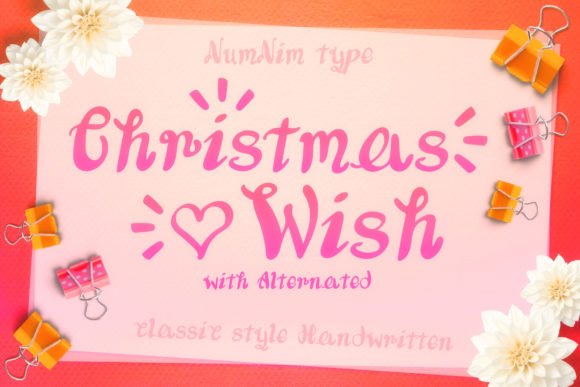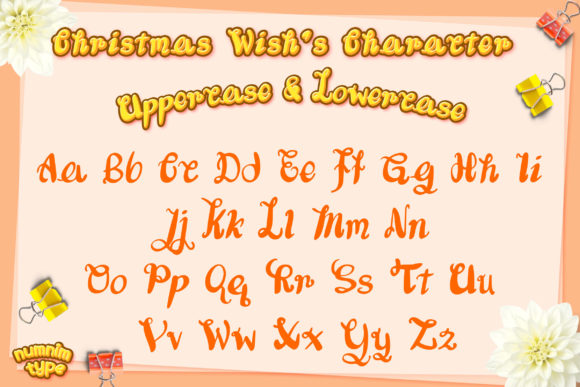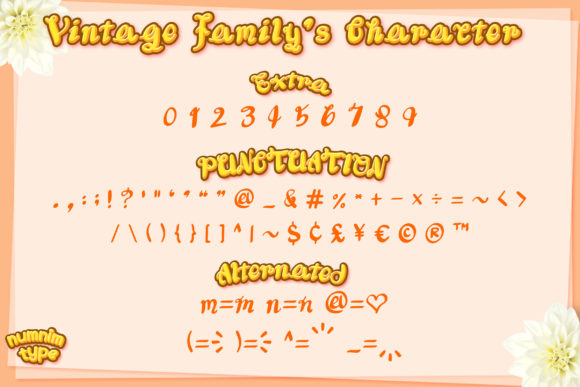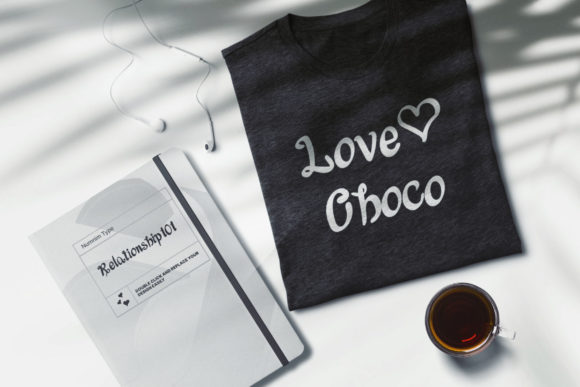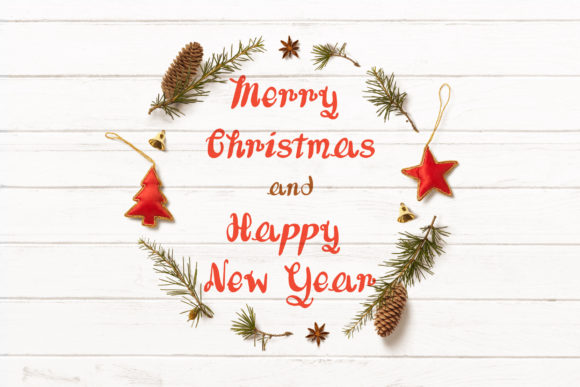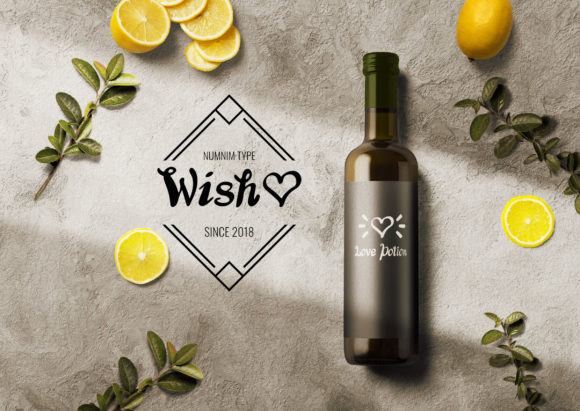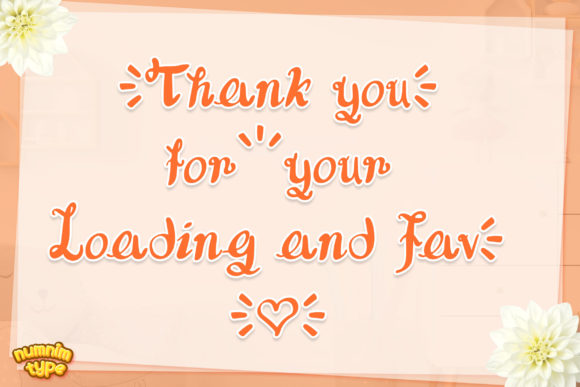
Unwrap the Magic of Christmas Design with the Christmas Wish Font
As the snowflakes start to fall and the fireplace crackles to life, the holiday season is in full swing. It’s a time for creativity and connection, and what better way to express your festive spirit than with a font that embodies the joy and wonder of Christmas? For designers, finding the perfect font can be a challenge, but when you stumble upon the Christmas Wish Font, all your holiday design dreams come true.
This magnificent script font is a treasure trove of chunky letters, beautiful swashes, and fun swirls, making it the perfect choice for greeting cards, social media posts, and countless other crafts and designs. With its PUA encoding, accessing the available glyphs and swashes is a breeze, allowing you to add a personal touch to your holiday creations. Whether you’re a seasoned pro or a design newbie, the Christmas Wish Font is sure to bring a smile to your face and a sparkle to your designs.
- Unique Characteristics: The Christmas Wish Font features a distinctive, hand-drawn design with intricate details and ornaments, making it perfect for festive and holiday-themed projects.
- Character Set: The font includes a comprehensive character set, including uppercase and lowercase letters, numbers, punctuation marks, and a range of festive symbols and icons.
Designer Review: Christmas Wish Font
As a designer, I was excited to try out the “Christmas Wish Font” for my upcoming holiday projects. Here’s my honest review.
- Unique and festive design: The font is perfect for adding a touch of holiday cheer to your designs.
- Wide character set: It includes a wide range of characters, including letters, numbers, and punctuation.
- Easy to read: The font is clear and easy to read, even at smaller sizes.
- Limited flexibility: The font is quite ornate and may not be suitable for all types of designs.
- Not ideal for body text: Due to its decorative nature, it’s best used for headlines or titles.
Overall, I think the “Christmas Wish Font” is a great choice for designers looking to add a festive touch to their projects. However, it’s essential to use it judiciously and in contexts where its unique design will shine. With some careful planning, it can be a fantastic addition to your design toolkit.
Use the Christmas Wish font to add a festive touch to your holiday designs. Experiment with different font sizes, colors, and combinations to create a unique look.
The Christmas Wish font is ideal for:
- Holiday cards and invitations
- Social media posts and ads
- Printed materials such as flyers and brochures